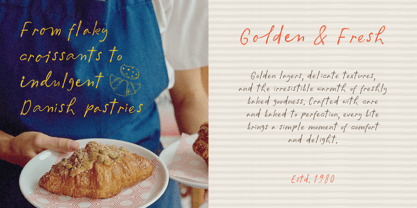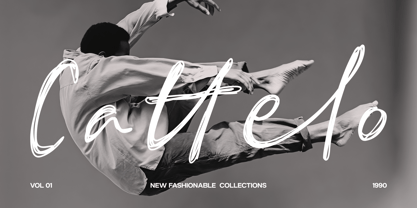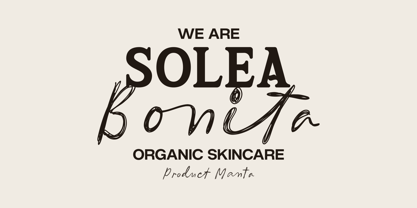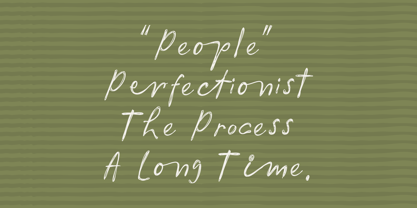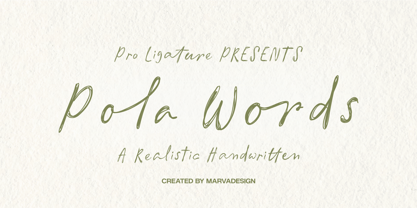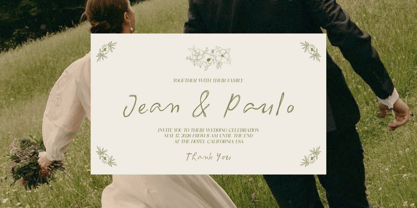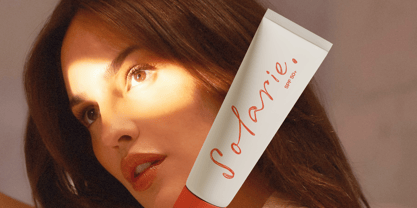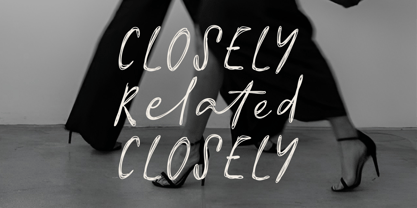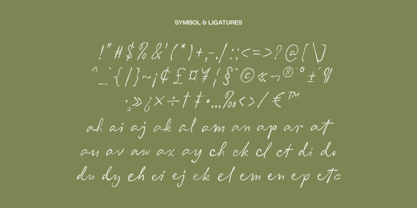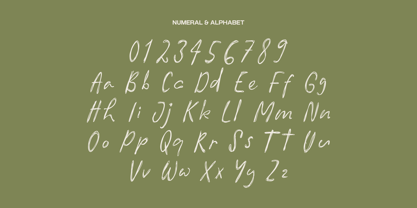
Pola Words
by Marvadesign
The Pola Words Font Family was designed by Febrie Setiawan and published by Marvadesign. Pola Words contains 1 styles. More about this family
Pola Words is a realistic, handwritten-style typeface that seamlessly blends a casual, expressive nature with an elegant, artistic touch. The letterforms are shaped by naturally flowing strokes, subtle irregularities, and sketch-like outlines, evoking the authentic feel of writing with a pen or fine-liner. Slight imperfections and overlapping stroke details lend a distinctive handmade character—feeling personal, spontaneous, and organic rather than mechanical. Fluid connections, elongated ascenders, dynamic curves, and varied proportions create a lively rhythm that imbues every word with a sense of movement and personality. One of its most unique features is a double-stroke appearance reminiscent of hand-drawing, where certain characters feature layered fine lines that mimic the motion of a repeated pen stroke. This creates a raw yet sophisticated aesthetic, allowing the font to stand out in both minimalist and expressive compositions. It also includes a full set of uppercase and lowercase letters, numerals, punctuation, symbols, and stylistic ligatures, offering greater flexibility for creative typographic projects.
Pola Words